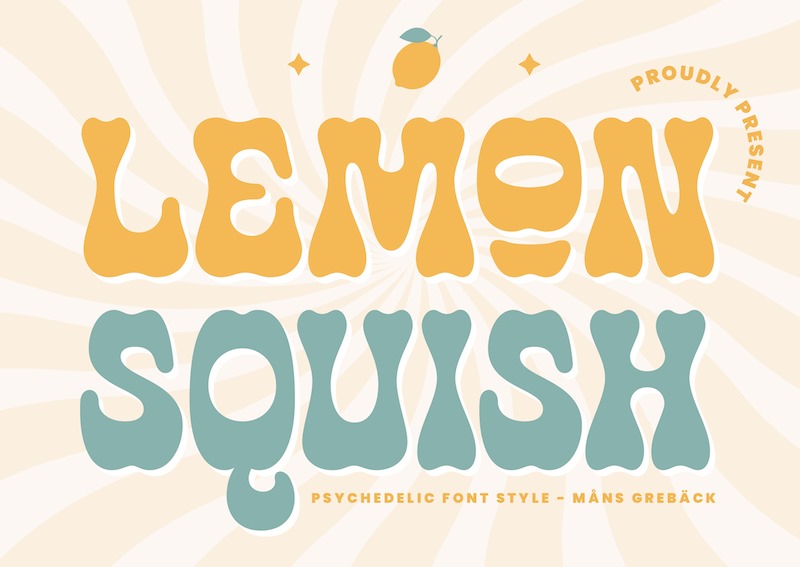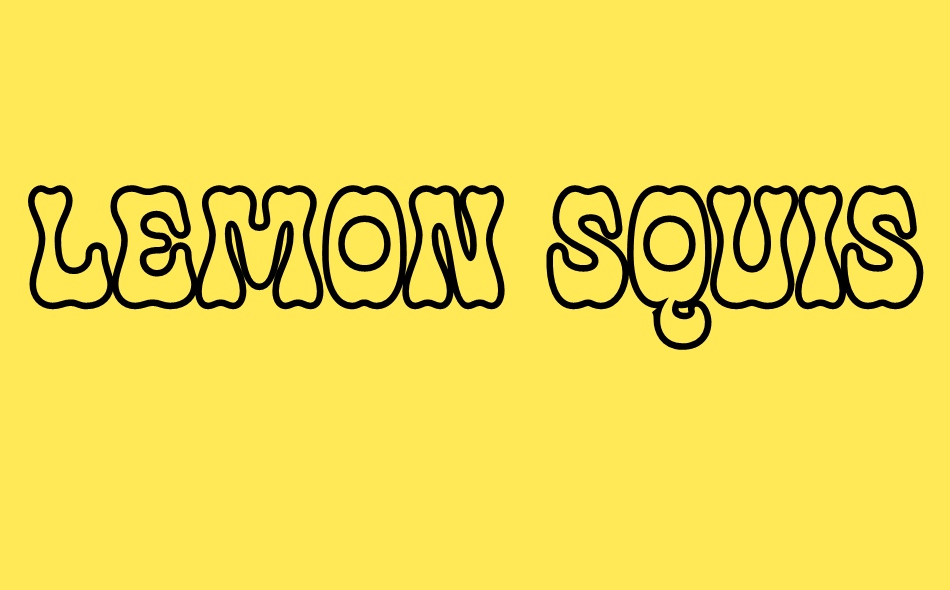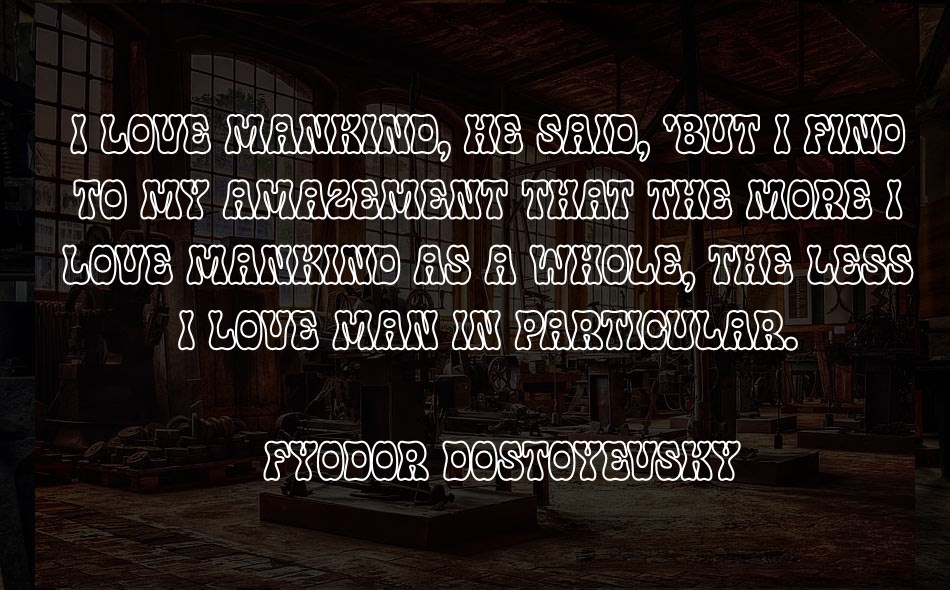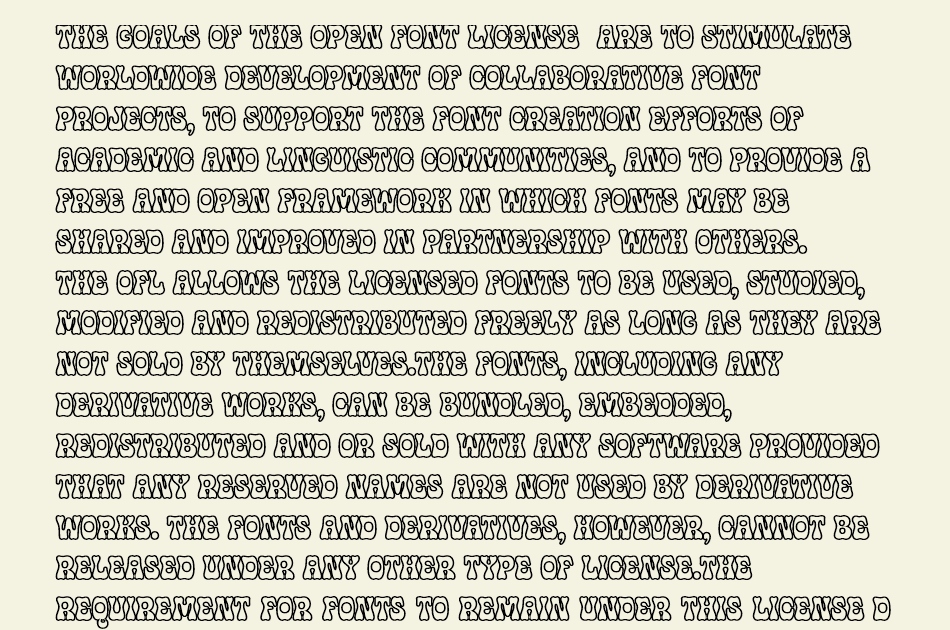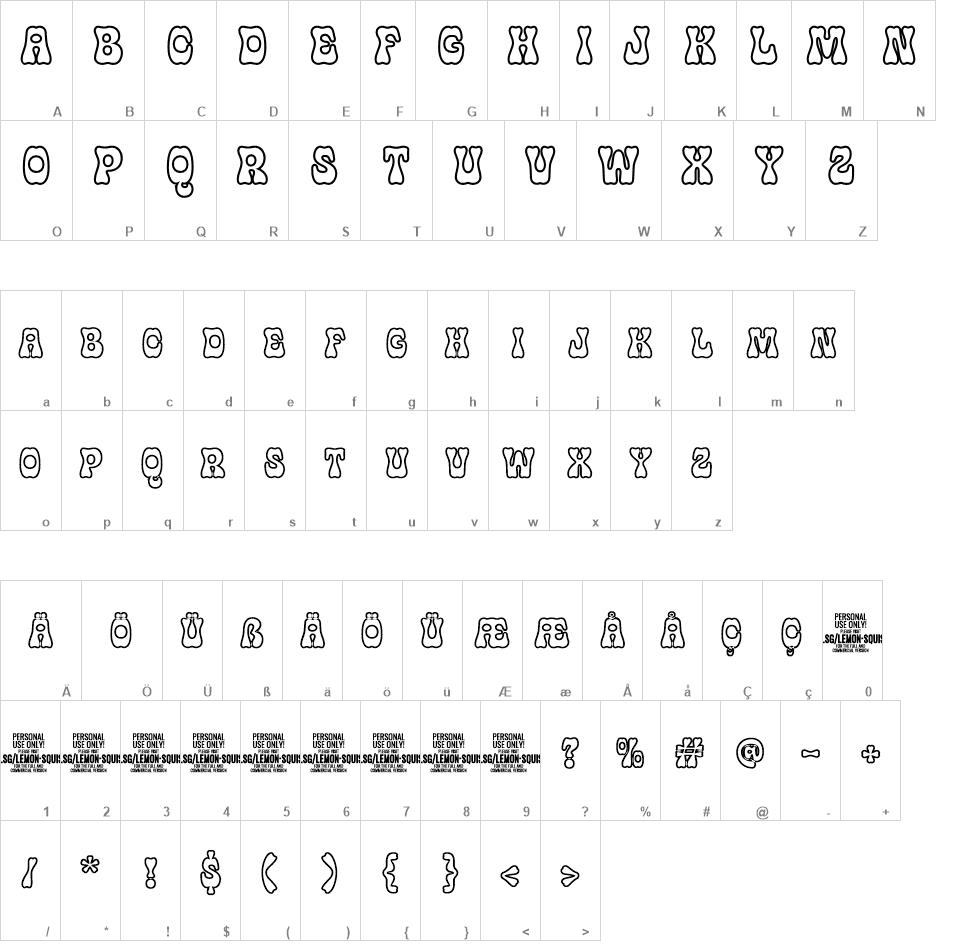
Lemon Squish font
Lemon Squish is a fun and funky sans-serif font that is perfect for adding a touch of humor and whimsy to any design. This font is inspired by the 70s hippie culture and has a retro feel that is reminiscent of comic books and graffiti.
Lemon Squish comes in ten different styles, including Bold, Bold Italic, Light, Light Italic, Regular, and four Outline variations. These various styles provide versatility and allow you to create dynamic and eye-catching designs.
The playful and lighthearted nature of Lemon Squish makes it ideal for anything from branding and logos to social media posts and advertisements. Its fun and quirky design will add a touch of humor and personality to your projects and bring a smile to your audience's face.
The font is built with advanced OpenType functionality and has a guaranteed top-notch quality, containing stylistic and contextual alternates, ligatures and more features; all to give you full control and customizability.
It has extensive lingual support, covering all Latin-based languages, from Northern Europe to South Africa, from America to South-East Asia.
It contains all characters and symbols you'll ever need, including all punctuation and numbers.